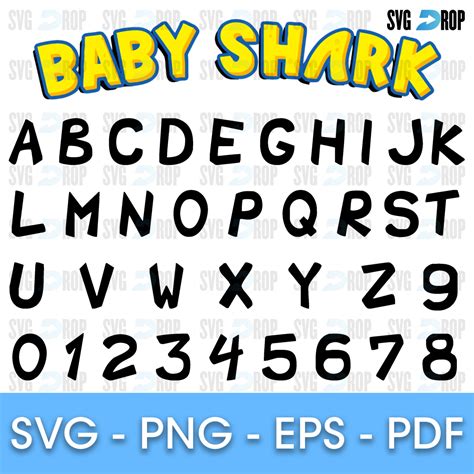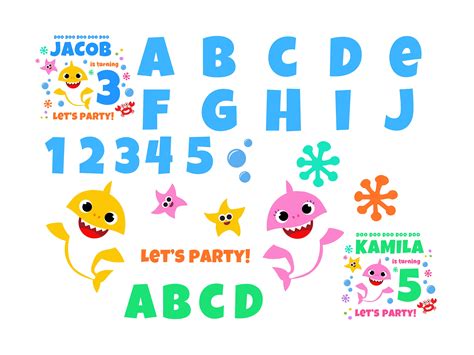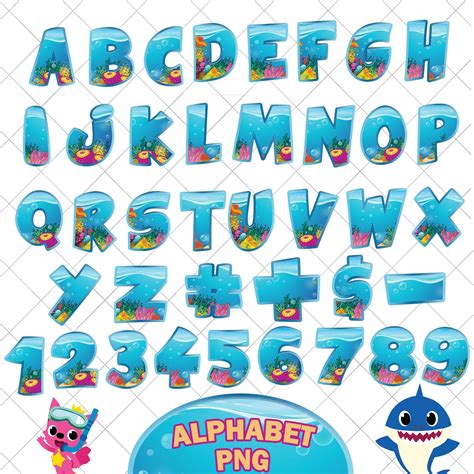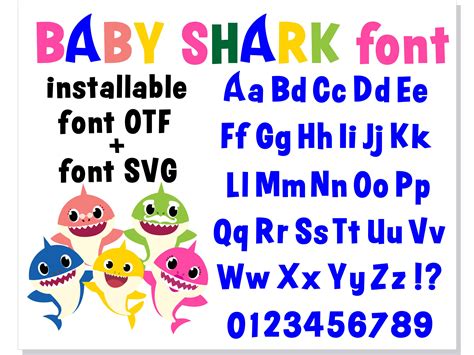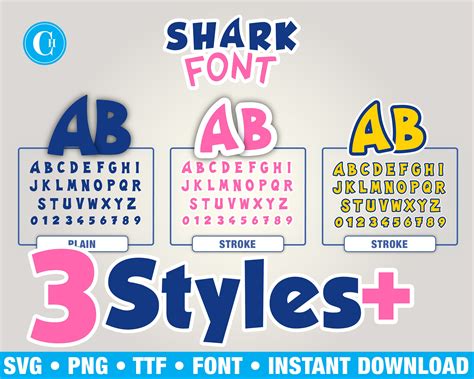
In the world of digital content creation, fonts play a crucial role in setting the tone and style of any project. One font that has gained significant popularity, especially among younger audiences, is the Baby Shark Font. This font is inspired by the viral children's song "Baby Shark," which has captivated millions of viewers worldwide. The Baby Shark Font is not just a fun and playful choice; it also has practical applications in various design projects. This blog post will delve into the origins of the Baby Shark Font, its unique characteristics, and how to use it effectively in your designs.
Origins of the Baby Shark Font
The Baby Shark Font originated from the immensely popular children's song "Baby Shark," created by Pinkfong, a South Korean educational entertainment company. The song, released in 2015, became a global phenomenon, with its catchy tune and simple lyrics resonating with children and adults alike. The font used in the song's visuals and merchandise quickly became a recognizable element of the "Baby Shark" brand, leading to its adoption in various design projects.
Characteristics of the Baby Shark Font
The Baby Shark Font is characterized by its playful and whimsical design. It features rounded edges and a slightly bubbly appearance, which gives it a friendly and approachable feel. The font is typically used in a bright color palette, often featuring shades of blue, pink, and yellow, which are associated with the underwater theme of the song. These characteristics make the Baby Shark Font an excellent choice for projects aimed at younger audiences or for designs that require a fun and lighthearted touch.
Using the Baby Shark Font in Design Projects
Incorporating the Baby Shark Font into your design projects can add a playful and engaging element. Here are some steps and tips to help you effectively use this font:
Step 3: Apply the Font to Your Design
After importing the font, you can start applying it to your design elements. Whether you're creating a poster, a logo, or a social media graphic, the Baby Shark Font can add a unique and playful touch. Experiment with different sizes, colors, and styles to see what works best for your project.
Step 4: Pair with Complementary Elements
To enhance the overall appeal of your design, consider pairing the Baby Shark Font with complementary elements. This could include:
- Bright and vibrant colors
- Playful illustrations or icons
- Backgrounds that evoke a fun and whimsical atmosphere
Applications of the Baby Shark Font
The Baby Shark Font is versatile and can be used in a variety of applications. Here are some common uses:
Children's Books and Educational Materials
The playful and approachable nature of the Baby Shark Font makes it ideal for children's books and educational materials. It can help engage young readers and make learning more enjoyable.
Event Invitations and Party Decorations
For themed parties or events, the Baby Shark Font can add a fun and festive touch to invitations, banners, and decorations. It's perfect for "Baby Shark"-themed birthday parties or underwater-themed events.
Social Media Graphics and Posts
In the digital age, social media graphics and posts are essential for engaging audiences. The Baby Shark Font can make your posts stand out, especially if you're targeting a younger demographic. Use it for captions, headlines, or even as part of a meme.
Branding and Logos
For brands targeting children or families, the Baby Shark Font can be a unique and memorable choice for logos and branding materials. Its playful design can help create a strong and recognizable brand identity.
Design Tips for Using the Baby Shark Font
To make the most of the Baby Shark Font, consider the following design tips:
Color Scheme
Choose a color scheme that complements the playful nature of the font. Bright and vibrant colors like blue, pink, and yellow work well with the Baby Shark Font. Avoid using too many dark or muted colors, as they can diminish the font's playful appeal.
Size and Spacing
Pay attention to the size and spacing of the text. The Baby Shark Font is best used in larger sizes to maintain its readability and impact. Ensure there is enough space between lines and words to avoid clutter and improve legibility.
Backgrounds
Select backgrounds that enhance the font's visibility and appeal. Light-colored backgrounds work well with the Baby Shark Font, as they provide a clear contrast and make the text stand out. Avoid using busy or patterned backgrounds that can distract from the text.